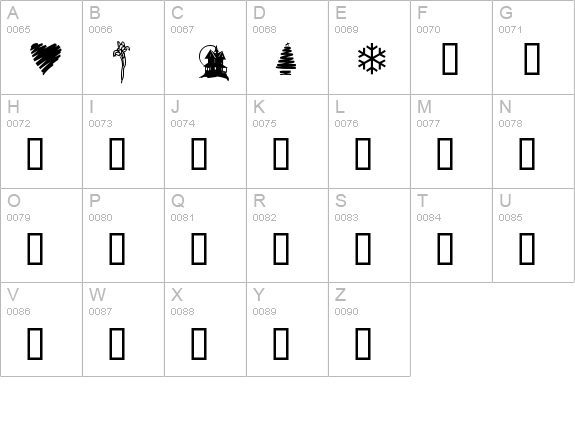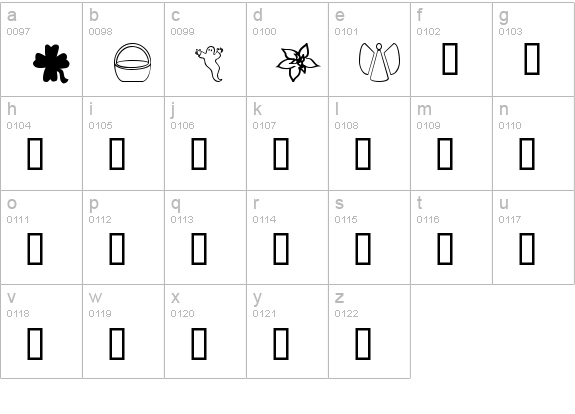
HOLIdaze Sample Font Details
Introducing HOLIdaze Sample font, a whimsical and playful typeface perfect for adding a festive touch to your designs. This delightful font features charming holiday-themed elements that will bring joy and cheer to any project. With its unique style and decorative accents, HOLIdaze Sample font is sure to make your designs stand out. Best of all, HOLIdaze Sample font is completely free to download at FontsMarket.com! Whether you're working on holiday cards, invitations, posters, or any other creative project, this font is a fantastic choice. Embrace the holiday spirit with HOLIdaze Sample font and let your imagination run wild with endless possibilities. Download it now and spread some festive cheer with your designs!